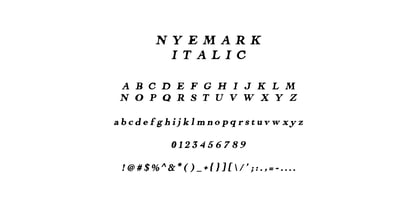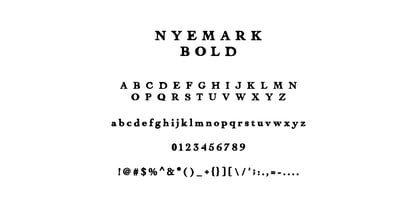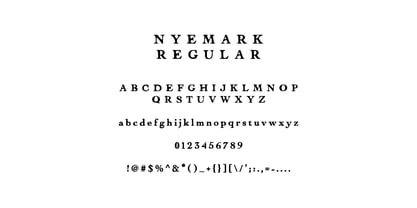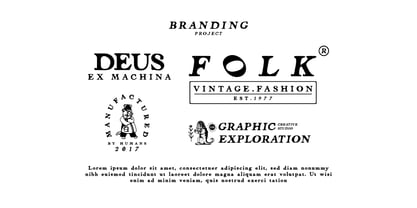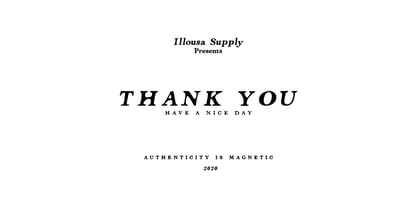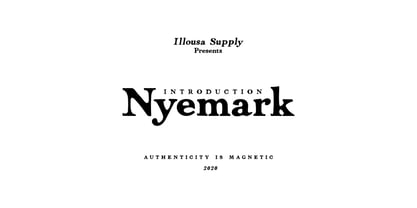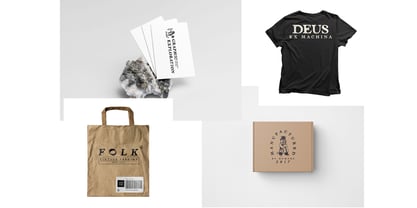
SCC Nyemark
by Illousa Supply Co
The SCC Nyemark Font Family was designed by Ilham Afrora and published by Illousa Supply Co. SCC Nyemark contains 3 styles and family package options. More about this family
Nyemark Serif Typeface By SCC Nyemark draws from the hand-lettered tradition, refined into a structured serif with vintage stylistic alternates and quiet minimalist elegance. The three-weight family, Regular, Italic, and Bold — adapts fluidly across logo systems, editorial layouts, packaging, and merchandise. A typeface built on the belief that authenticity is magnetic.